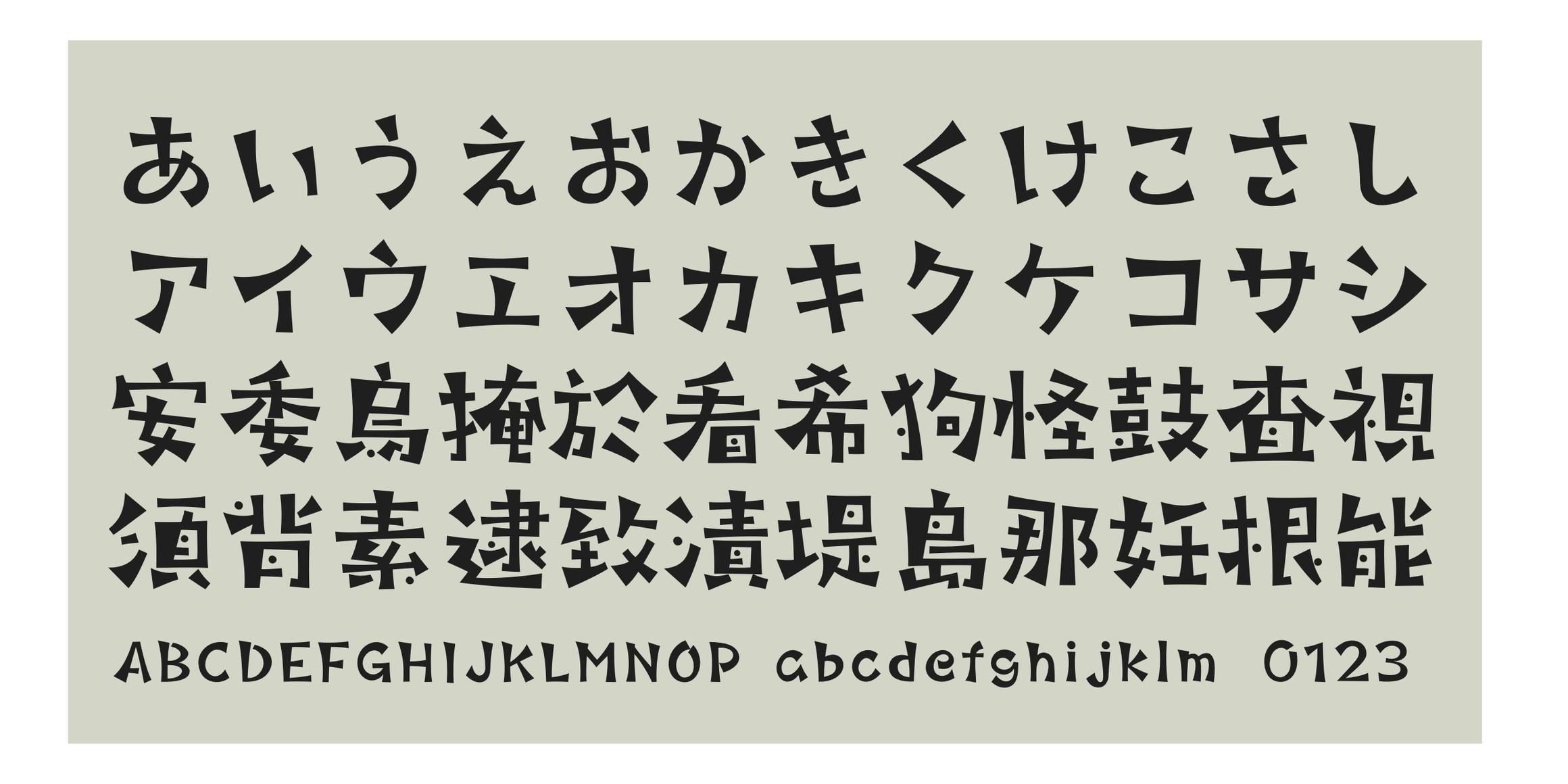
It is imprinted with the strength and firm will that will not yield to any crisis.
The birch font is a good font when you want to convey a strong message more clearly.
What is a Ruling Pen?
A roughening pen, also known as an ink-joule pen, usually means drawing a line
This pen is used for lettering. It's softer because it's a straight line than a curve
I think it's a better tool for rough textures than fonts.
Hold the ink between the two overlapping nips and make a thick and thin stroke
depending on the intended pressure and angle
It is a tool that has recently been loved by many calligraphy artists because
it can be directed.
- Soul 자작나무 / Soul Jajaknamu